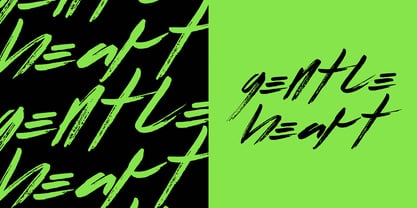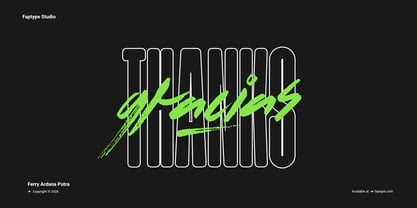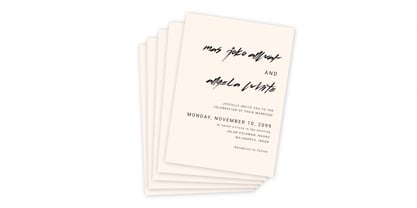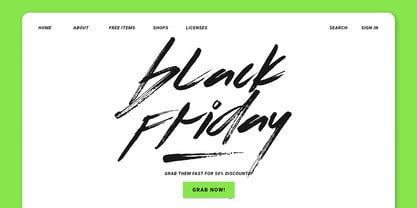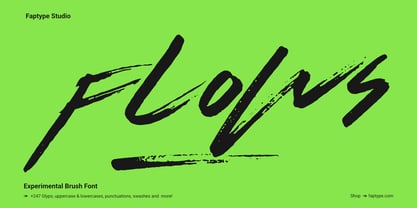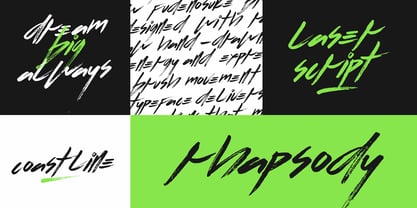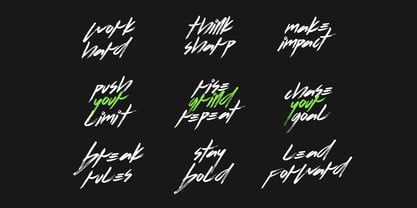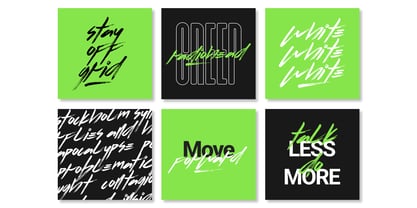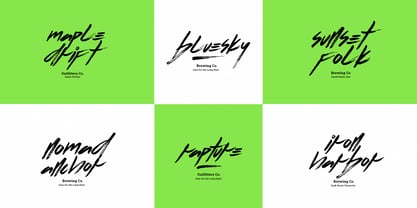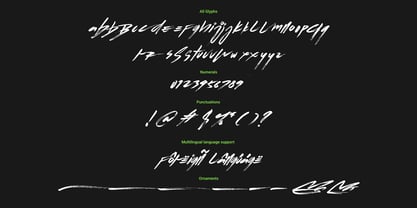
Flows Brush
by Ferry Ardana Putra
Flows Brush is an experimental brush font crafted manually using the iconic Tombow Fudenosuke Brush pen. Designed with raw hand-drawn energy and expressive brush movement, this typeface delivers a modern artistic feel with natural imperfections that make every letter look authentic and alive.
The character shapes combine expressive brush strokes with an experimental structure, creating a unique balance between readable typography and artistic freedom. Flows is perfect for designers who want a handcrafted typeface with bold personality and modern visual impact.
This font works beautifully for streetwear branding, album covers, poster designs, editorial layouts, music visuals, social media graphics, packaging, creative branding, YouTube thumbnails, and experimental typography projects.
Flows Experimental Brush Font includes complete lowercase characters, numerals, punctuation, symbols, and stylistic alternates to help you create more dynamic and expressive typography compositions.
Created through real hand lettering using Tombow Fudenosuke Brush and digitally refined for professional use, this font preserves authentic brush textures while remaining clean and versatile for modern design needs.
Font Features
Flows Experimental Brush Font comes with expressive brush details, natural dry textures, handcrafted movement, and modern experimental letterforms that create a strong visual identity for creative projects.
This font is carefully designed to maintain a natural handwritten feel while still offering excellent readability and professional quality.
Features of Flows Font
• Lowercase letters
• Numbers & punctuation
• Multilingual support
• PUA-encoded characters
• OpenType features
• 276+ glyphs
• Aternates Included
• Dry brush swashes included